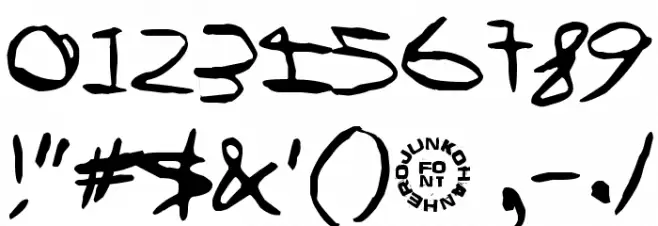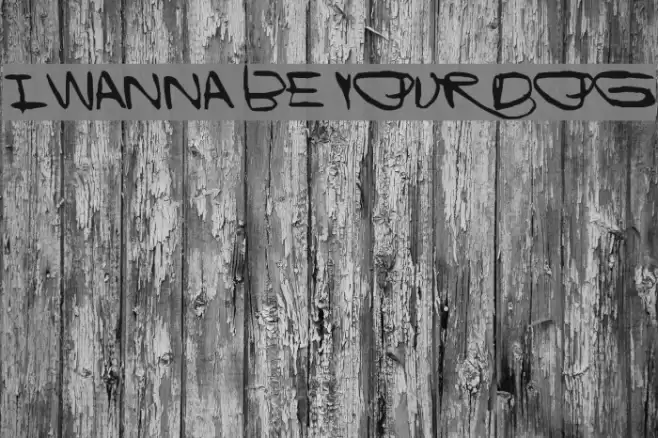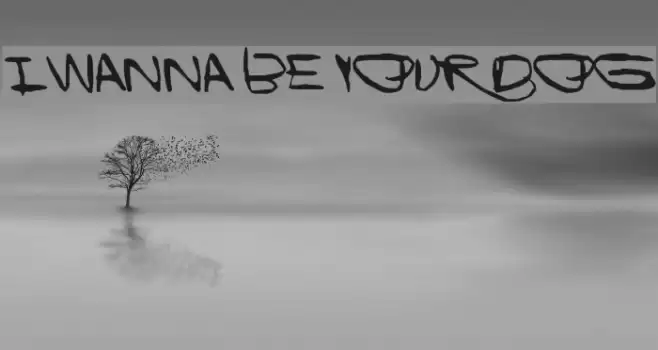
I Wanna Be Your Dog Font
This font features a raw, expressive style that mimics the appearance of hand-drawn graffiti. The letters are bold and irregular, with a rough, edgy aesthetic that conveys a sense of rebellion and individuality. The strokes are thick and uneven, giving each character a unique and dynamic look. The font includes both uppercase and lowercase letters, numbers, and a selection of special characters. Its unconventional design makes it stand out, perfect for projects that require a bold statement or an artistic touch.
A bold, graffiti-style font with a raw, expressive aesthetic from Handwritten fonts.
• Proposed Projects: Ideal for album covers, street art-inspired designs, posters, and edgy branding projects.